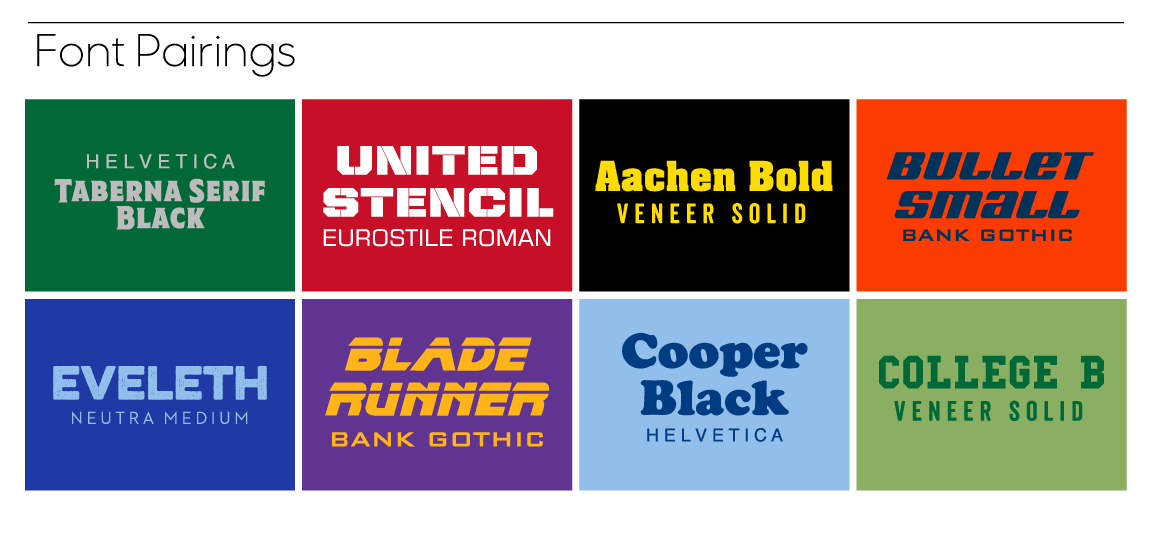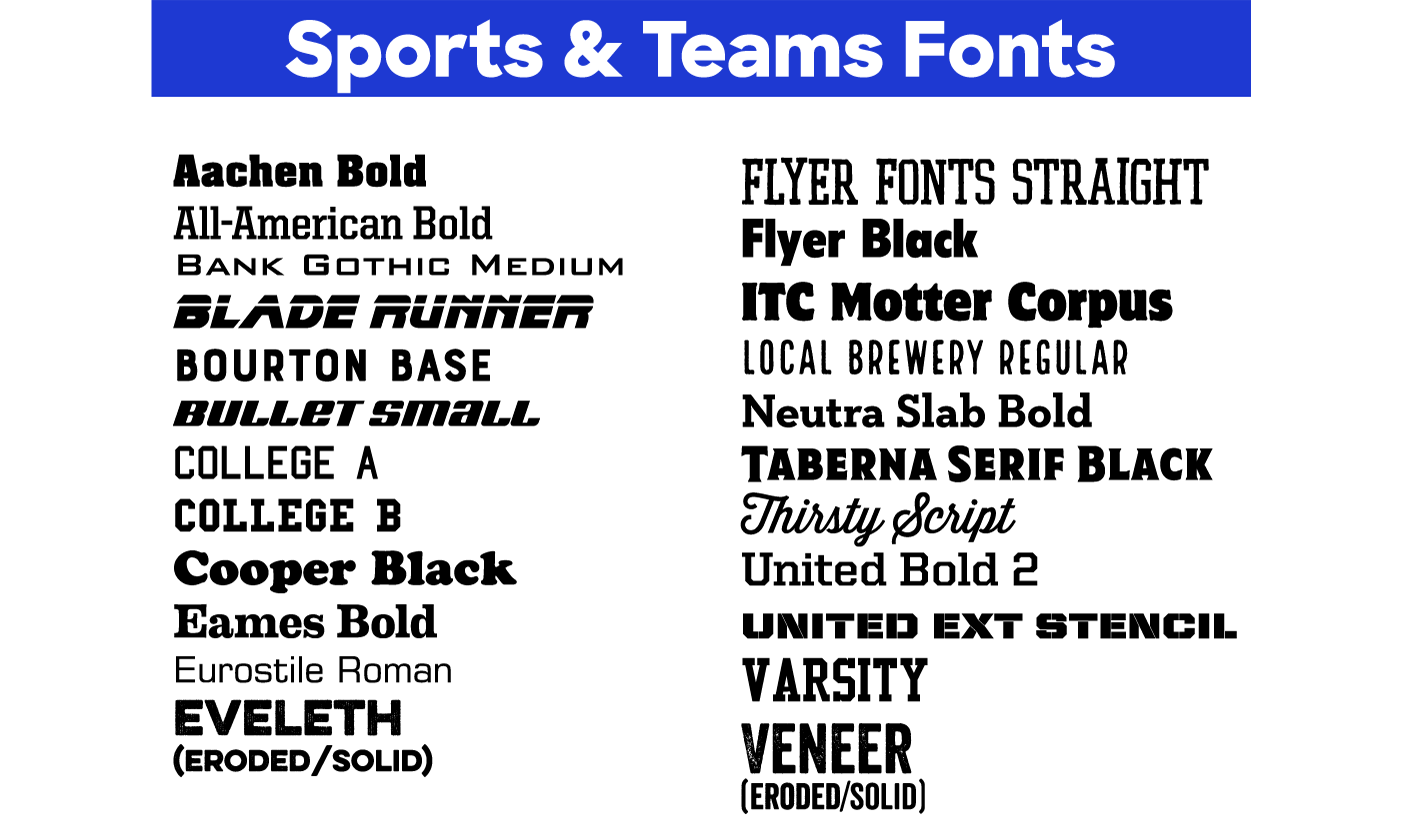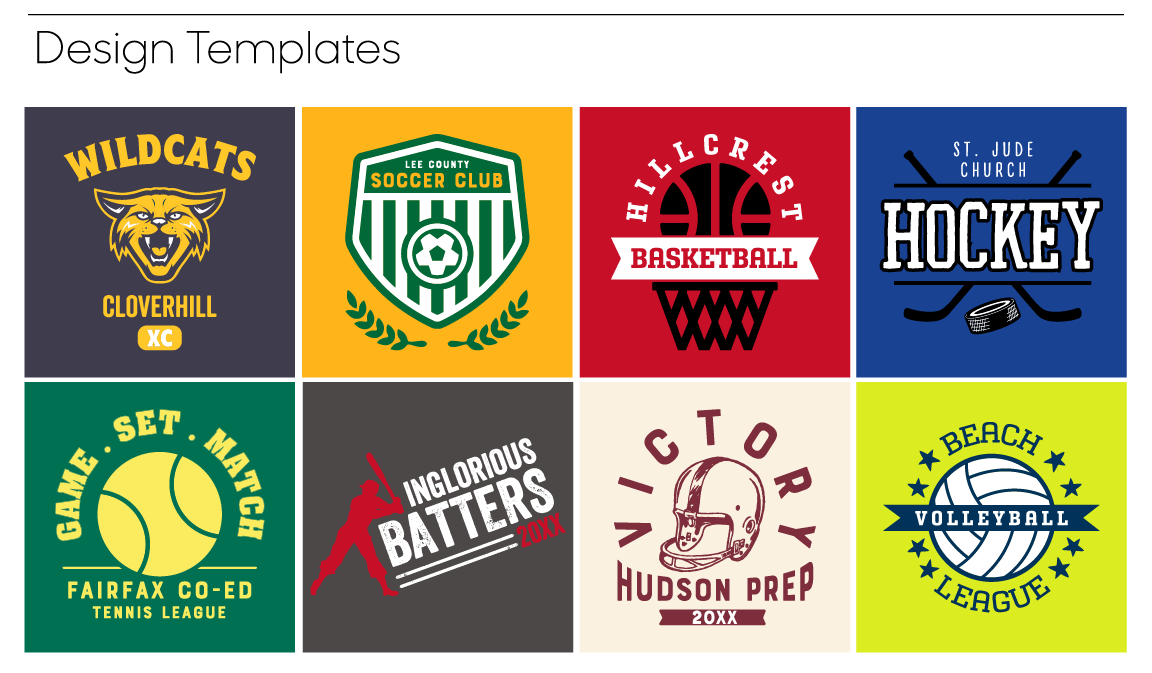
Best Fonts for Team Jerseys & T-shirts
When you hit the field with your team, it’s important to look like a team. And the best way to do that is in uniforms that make you stand out. Sure, colors and mascots are important, but choosing the right fonts for your sports uniforms is what will set your style apart from the rest.
Whether you’re on the basketball team or the baseball team or play for your school or a rec league, there’s plenty of fonts to choose from to achieve the perfect look. If you head into our Design Lab, you’ll find a ton of great fonts for your uniforms. Write your team name in your favorite font, or combine it with some of our awesome artwork. To help you out, below are some of our recommendations for the best fonts for team jerseys, shirts, and face masks.
Font Categories
First, a quick lesson on fonts. There are two main font styles: serif and sans serif.- A serif font has short lines at the ends of the letters, making it look less blocky, one of the most popular serif fonts that you might know is Times.
- Sans serif fonts are just that–a font “sans” or without serif. A common sans serif font is Arial.
Our Best Fonts for Sports Picks
Choosing the right fonts for your custom sports gear can really help you knock it out of the park. Whether you need jerseys, team t-shirts, jackets, hats, or more, we’ve narrowed down our favorite fonts for your sports team and apparel. The graphic below features some of our favorite sports templates that use these fonts.
23 Fonts for Sports T-shirts
- Aachen Bold
- All-American Bold
- Bank Gothic Medium
- Blade Runner
- Bourton Base
- Bullet Small
- College a
- College b
- Cooper Black
- Eames Bold
- Eurostile Roman
- Eveleth (Eroded/Solid)
- Flyer Fonts Straight
- Flyer Black
- ITC Motter Corpus
- Local Brewery Regular
- Neutra Slab Bold
- Taberna Serif Black
- Thirsty Script
- United Bold 2
- United Ext Stencil
- Varsity
- Veneer (Eroded/Solid)
Any Player, Coach, or Fan Can Use Fonts
An important design element for custom gear is pairing multiple fonts. Finding two unique fonts that work together will make your design look clean and professional. You’ll see in our graphic below some of our favorite sports fonts to pair together.
For a classic sports look, pair College B with Veneer Solid. The blockiness of College B will remind you of traditional sports apparel, and Veneer Solid works with it to give it a modern and trendy look. Consider using College B for your team’s name and Veneer Solid for your subhead such as “women’s league” or “intramural soccer.”Playing a less traditional sport like broom ball or ultimate frisbee? Give your uniforms a one of a kind look by pairing Bullet Small with Bank Gothic. Bullet Small has a futuristic vibe with varying letters in uppercase and lowercase. Because it’s so unique, a modern but simple sans serif font like Bank Gothic is the perfect complement for your design. Want to design your team’s jerseys? Visit our Design Lab and check out all of our fun fonts. If you need more inspiration, check out our sports templates. What are your favorite fonts to use for your sports team or league? Tell us about your sports t-shirts and more in the comments below!
Sports Fonts FAQ
Which fonts work best on team jerseys?
Bold block and athletic fonts read best from the stands, especially for names and numbers. Save script fonts for short words on the front.
Can we use two fonts on one jersey?
Yes. A common pairing is a script or bold display font for the team name and a simple block font for names and numbers.
Can we add player names and numbers?
Yes. A common layout is the team name on the front and each player’s name and number on the back.